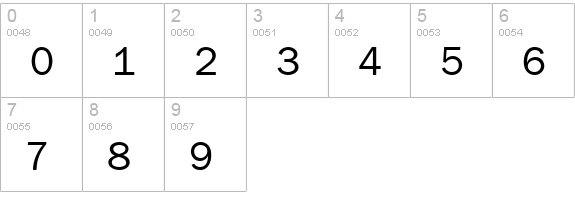
FrankfurtGothic is a striking and modern font that exudes elegance and sophistication. Its clean lines and sharp edges make it perfect for a wide range of design projects, from branding to editorial design. With its bold yet refined appearance, FrankfurtGothic commands attention and leaves a lasting impression. The best part? FrankfurtGothic is available for free download at FontsMarket.com. This means that you can add this versatile font to your collection without any cost, making it a valuable asset for any designer or creative professional. Don't miss out on the opportunity to enhance your projects with the timeless beauty of FrankfurtGothic - download it today and elevate your designs to the next level.